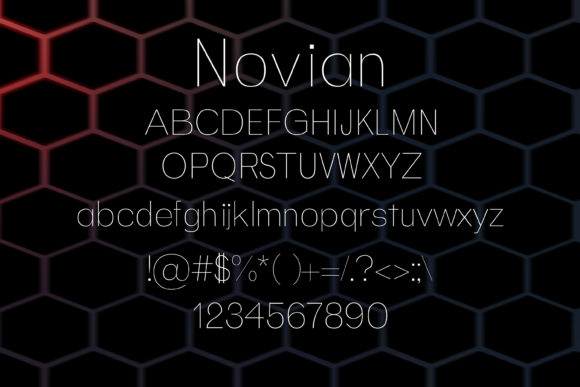
Introduction to Novian Font
You know that moment when a single design element can elevate an entire creative project? For me, it’s often the perfect font that makes all the difference. Recently, I stumbled upon the Novian Font, and I just had to share it with fellow designers.
This thin and delicate sans serif font boasts a modern look that’s both elegant and versatile. With its clean lines and minimalist aesthetic, the Novian Font is a valuable resource for designers looking to add a touch of sophistication to their work. Whether you’re working on a branding project, a digital design, or a print campaign, this high-quality font is sure to impress.
Key Features of Novian Font
- High-quality, unique font design ideal for creative projects and designs.
- Includes a range of characters, including uppercase and lowercase letters, numbers, and special symbols.
- Perfect for use in graphic design, digital art, and other creative pursuits where a distinctive and elegant font is required.
Honest Review: Novian Font
I recently had the chance to work with the Novian Font, and I must say it’s a solid addition to any designer’s toolkit. As a design resource, it offers a lot of potential for creative projects, especially when paired with a transparent background.
What works well: ✨ The font itself is high quality, with crisp lines and a modern feel that’s perfect for contemporary design projects. The free download option is also a major plus, making it accessible to designers of all levels.
Here are some of the key features I liked:
- High-quality font design
- Transparent background support
What doesn’t work well: ⚠️ While the font is high quality, it’s not particularly versatile. It’s best suited for specific design niches, such as tech or fashion. Additionally, the character set could be more comprehensive.
Overall, I’m impressed with the Novian Font. It’s a valuable design resource that can add a touch of modernity to any creative project. With some limitations in mind, I’d definitely recommend it to designers looking for a high-quality font.
Tips for Getting the Most Out of Novian Font
Use the Novian Font in conjunction with a transparent background to create a high-quality design resource for your creative project.
The Novian Font is ideal for use in brochures, posters, and social media graphics. Its high-quality design makes it perfect for any creative project.